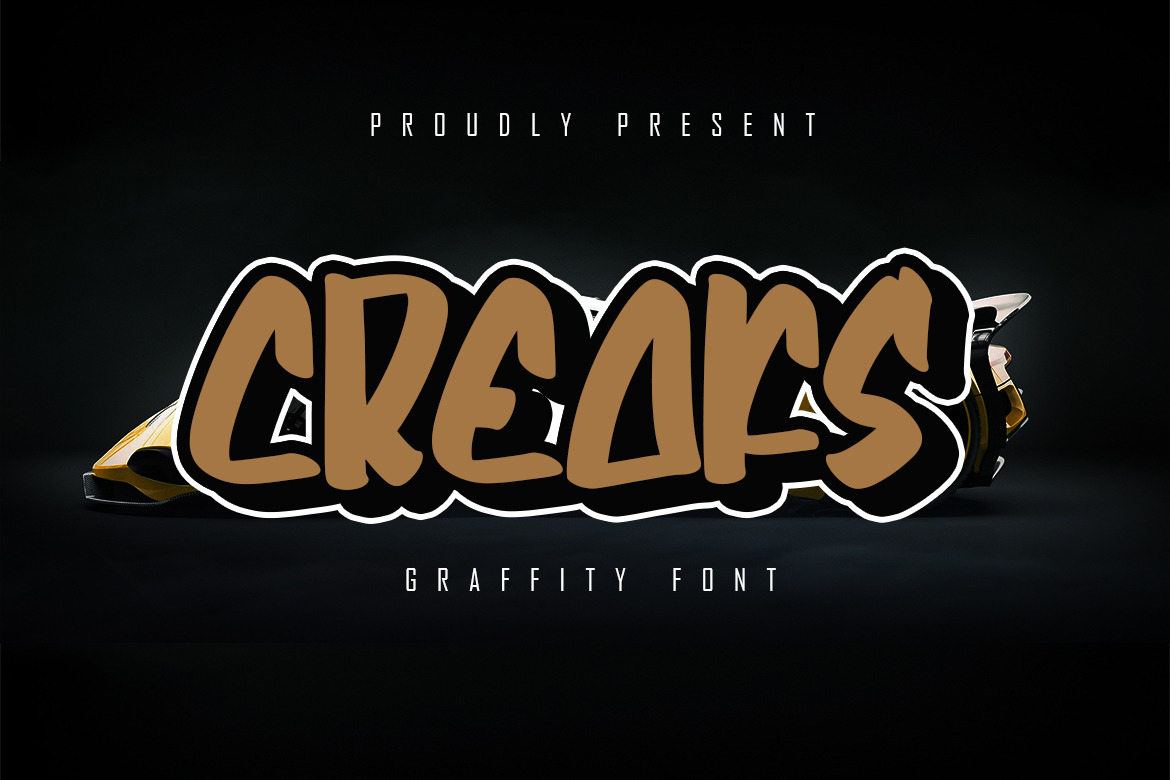
Creaks - Graffiti Font
Creaks a Graffity font. This font will very suitable for your fun project like children party, cute quotes, or any cute fun related projects. Grab it now !